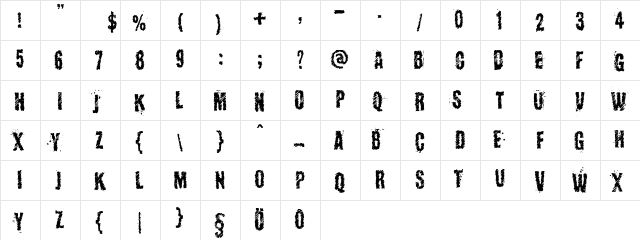
2 Regular
| Foundry | Bumbayo Font Fabrik |
| Designer | Bumbayo |
Design Context for 2 Typeface
2 is a composed and adaptable typeface that performs quietly and consistently across a wide range of design contexts.